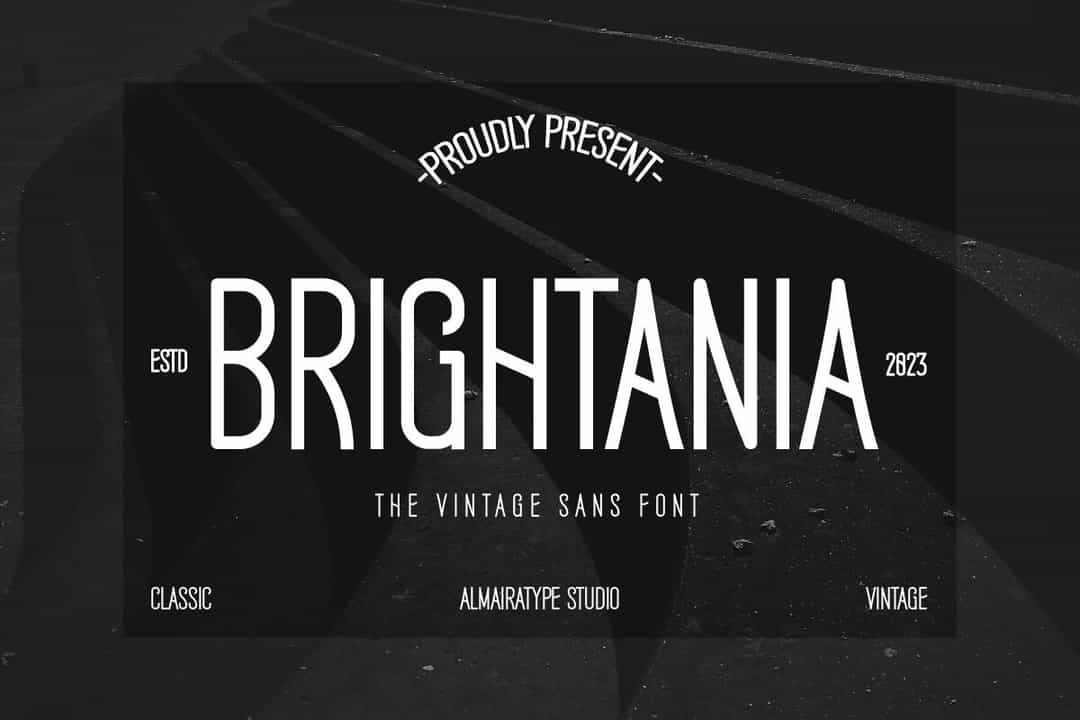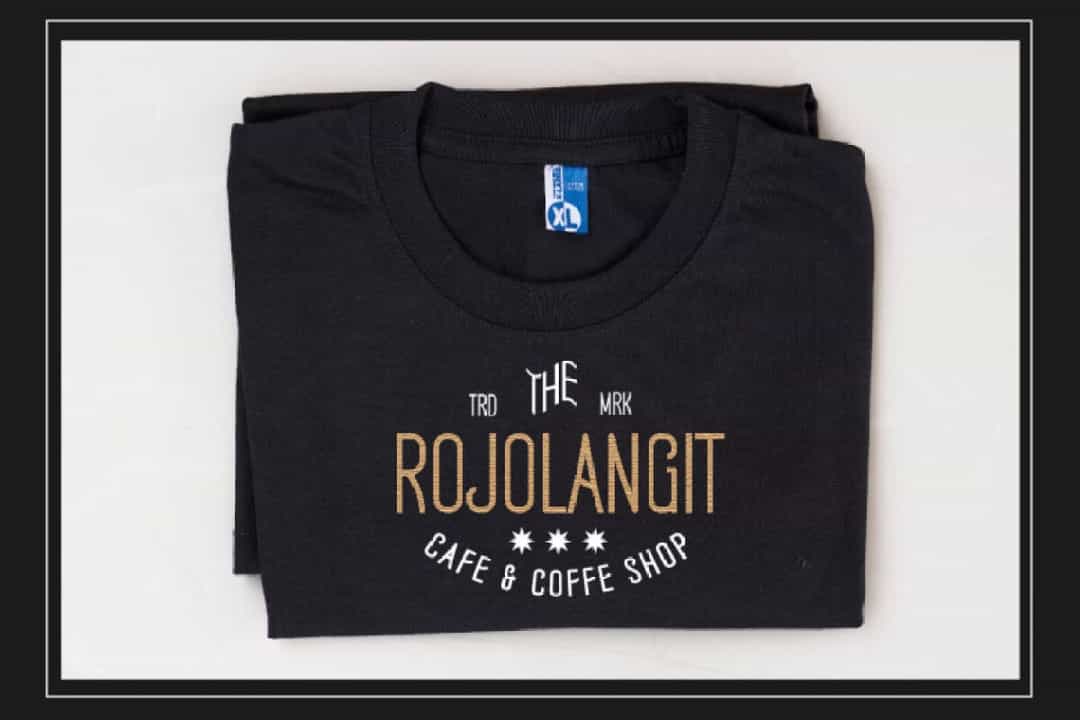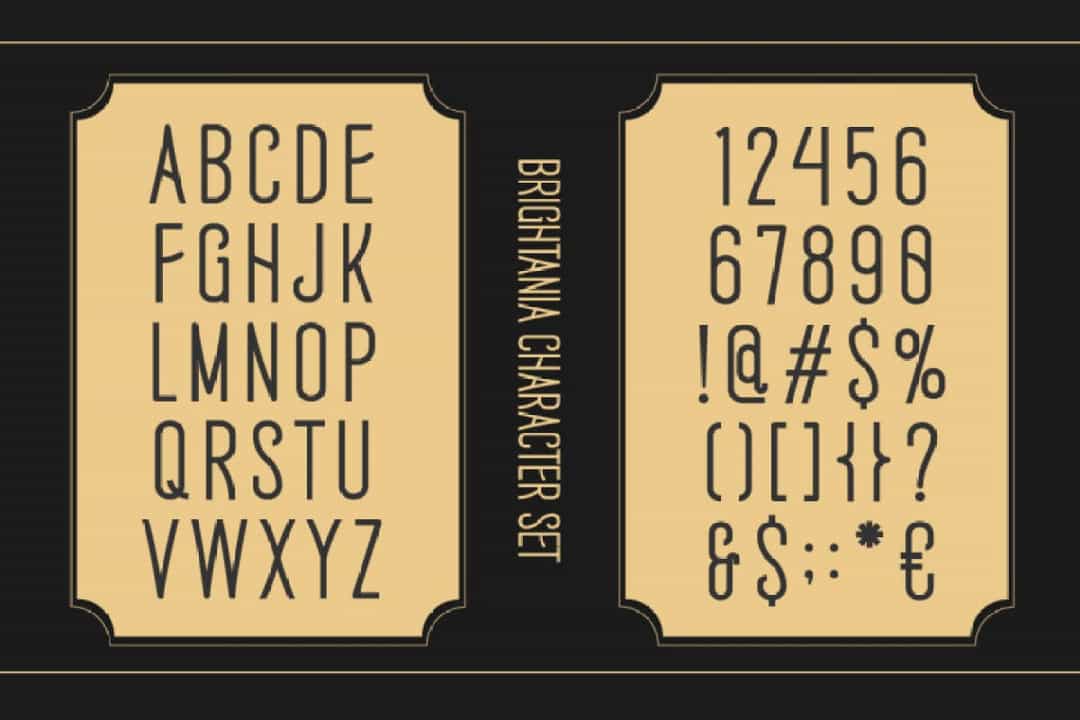
Brightania can be described as an antique yet contemporary font with its mix of antiquity and modernism, ideal for headlines, craft branding, business clothing print and t-shirt printing, Cricut engravings or silhouettes – it’s truly versatile!